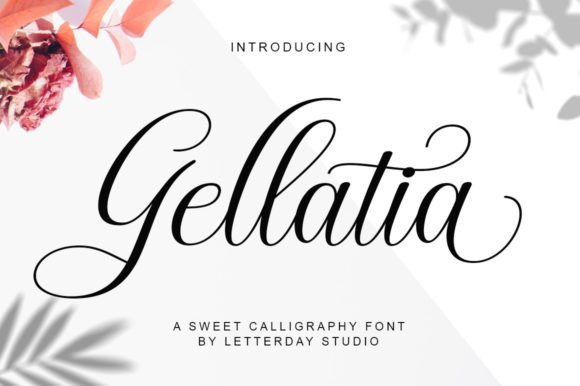
Prepare yourself to be mesmerized by Gellatia, a script font that exudes elegance and charm. Its captivating strokes and flowing curves will transport you to a realm of creativity and visual delight. Crafted with precision by Letterday, Gellatia is not just a font; it's an artistic masterpiece waiting to be unleashed upon your designs.
With Gellatia at your fingertips, you'll embark on a typographic adventure like never before. Its versatility knows no bounds, making it the perfect choice for a wide range of projects. Enchant your wedding invitations with a touch of romance, add a dash of sophistication to your branding materials, or let your imagination run wild as you create stunning social media graphics.
Gellatia's meticulously crafted characters dance harmoniously on the page, creating a visual symphony that will leave your audience spellbound. Its delicate swashes and graceful serifs add an air of refinement to any design, while its carefully balanced proportions ensure readability even at smaller sizes.
More than just a font, Gellatia is an expression of your unique style and creativity. Whether you're a seasoned designer or just starting your typographic journey, Gellatia will elevate your work to new heights. Experience the magic of Gellatia and let your designs bloom with elegance and charm.